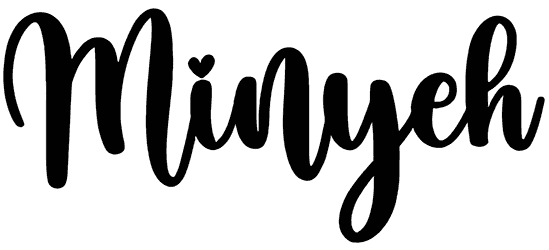
Minyeh Font
You have a nice chance to give a soft and appealing visual to your intended design with this sweet handwritten font. Almost all characters of this cursive font are available, and you can set it for any short or long text. Test the Minyeh font for your new travel postcard design or whatnot and hook lots of people.